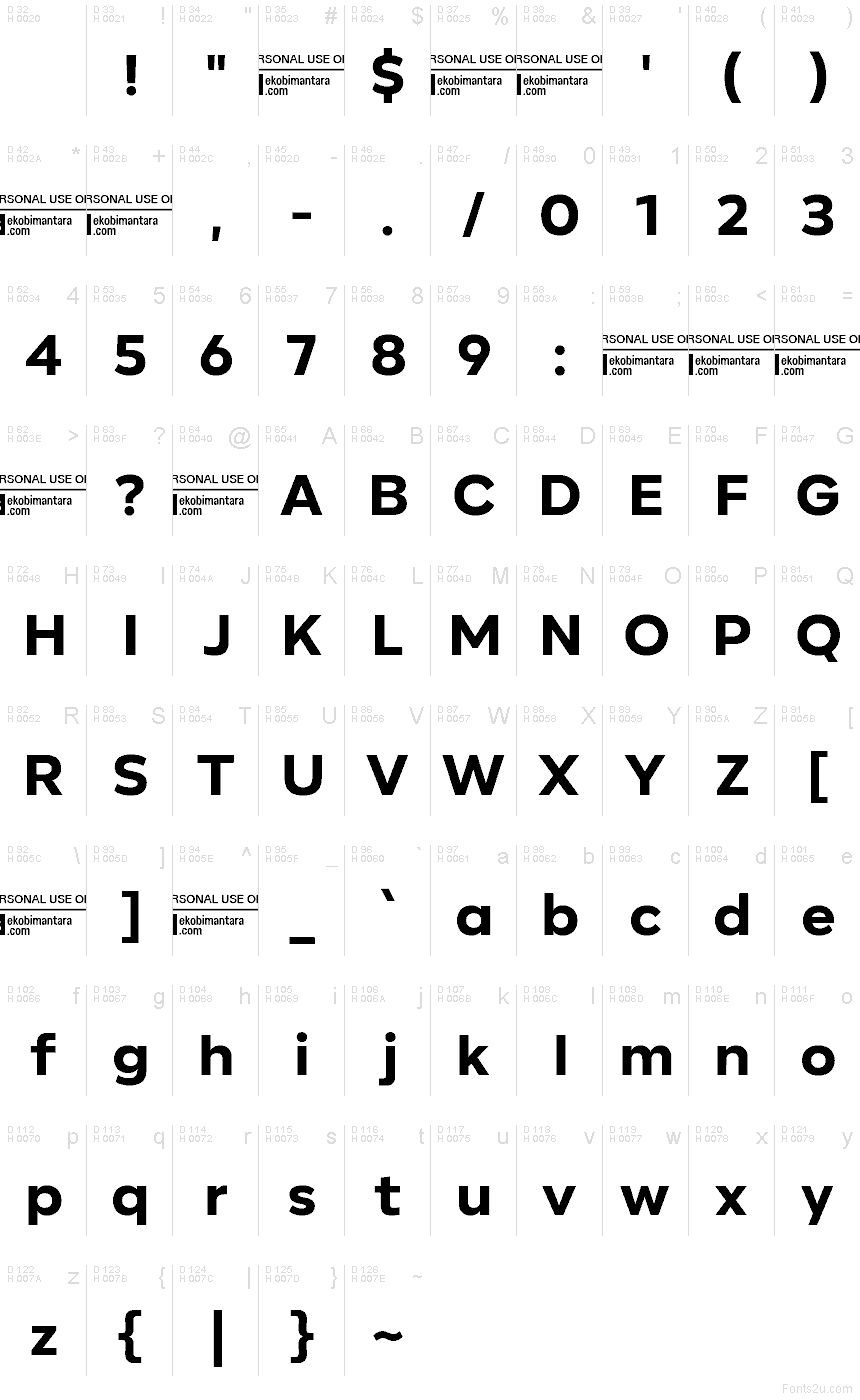
Geova Trial Bold
Geova Bold font by Eko Bimantara is a free sans serif font. Built around the striking contrast of soft, rounded bowls and crisp, chisel-cut diagonals, it feels both friendly and decisive. The weight lands with a confident thud while the curves stay buttery-smooth, giving headlines a clean, contemporary snap without turning cold. As part of the Geova family, it delivers a consistent, brand-ready voice.
Using Geova Bold, short words lock together with steady rhythm and generous counters, so messages stay legible even at tight sizes. It shines on branding, packaging, tech landing pages, app headers, posters, signage, and social promos. This free font works beautifully when you pair it with Geova Regular for body copy, or track it slightly tighter for punchy, compact headlines.